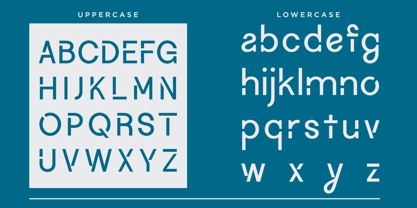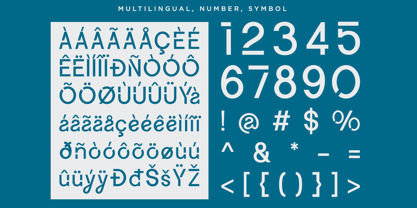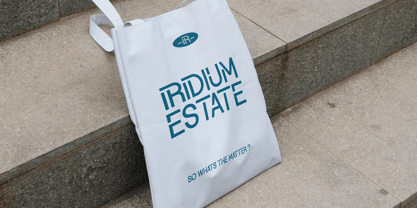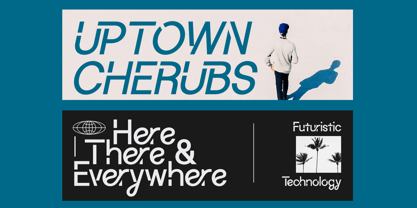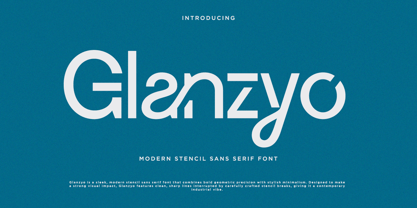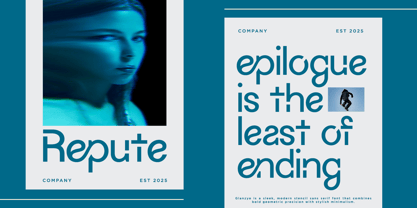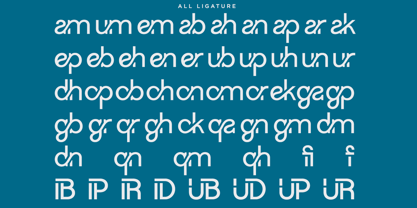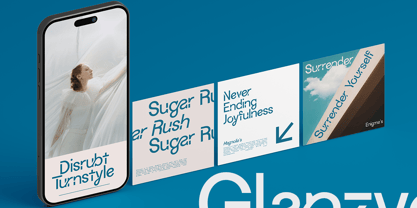
Glanzyo
by RagamKata
The Glanzyo Font Family was designed by Yogiswhara Dio Prakoso Riadi and published by RagamKata. Glanzyo contains 2 styles and family package options.
Glanzyo is a striking geometric stencil typeface featuring clean lines, uniform stroke widths, and a refined tech-industrial aesthetic—perfect for designers who value clarity with a strong presence. Its sharp legibility and contemporary feel make it well-suited for futuristic branding, interface-driven designs, or bold editorial layouts. With rounded counters and harmonious proportions, Glanzyo offers a visually balanced look that’s both innovative and reliable. Whether you're designing for a cutting-edge startup or sleek modern product branding, this font brings clarity and structure to every message. Whats Included : - Glanzyo Regular - Glanzyo Italic - Stylistic Ligatures - Multilingual Support - Number, and Symbol. Thanks Have a great day Ragamkata Studio
Designers: Yogiswhara Dio Prakoso Riadi
Publisher: RagamKata
Foundry: RagamKata
Design Owner: RagamKata